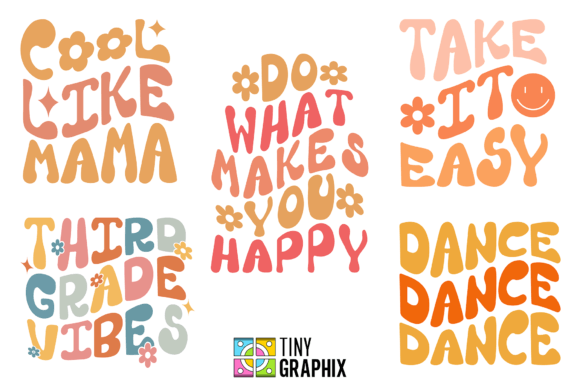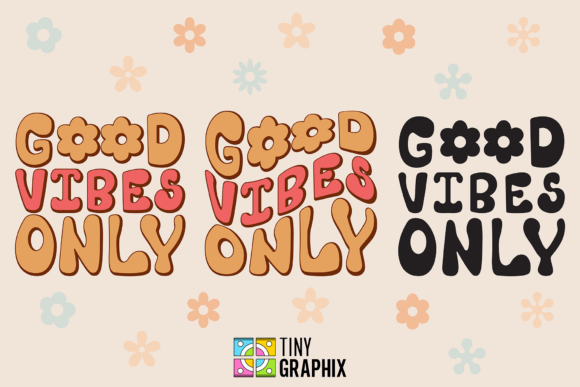
Cute Retro Font
CUTE RETRO Font is a stylish, and playful cool, fun and display font. Whether you’re using it for crafts, greeting cards, headlines, stickers, t shirt designs, quotes, titles, digital design, presentations, and many more!